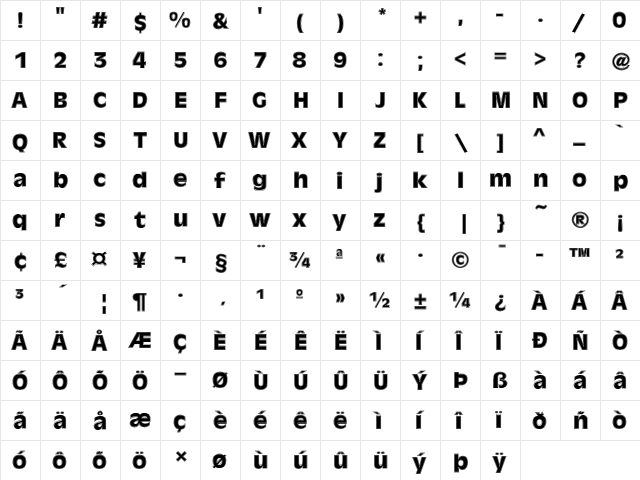
Antique Olive T In1 Regular
Design Context for Antique Olive T In1 Typeface
Antique Olive T In1 wears its vintage influences proudly, with letterforms that recall mid-century signage, classic packaging, and nostalgia-driven design.
Perfect for vintage-inspired branding, retro packaging, nostalgia campaigns, and period-accurate editorial design.
Font Pairing: Combine Antique Olive T In1 with a simple slab or neutral sans — period-accurate companions reinforce the vintage feel without competing for attention.
Pro Tip: Use Antique Olive T In1 for headlines and pull quotes rather than body copy — its personality is best appreciated in short, focused bursts.